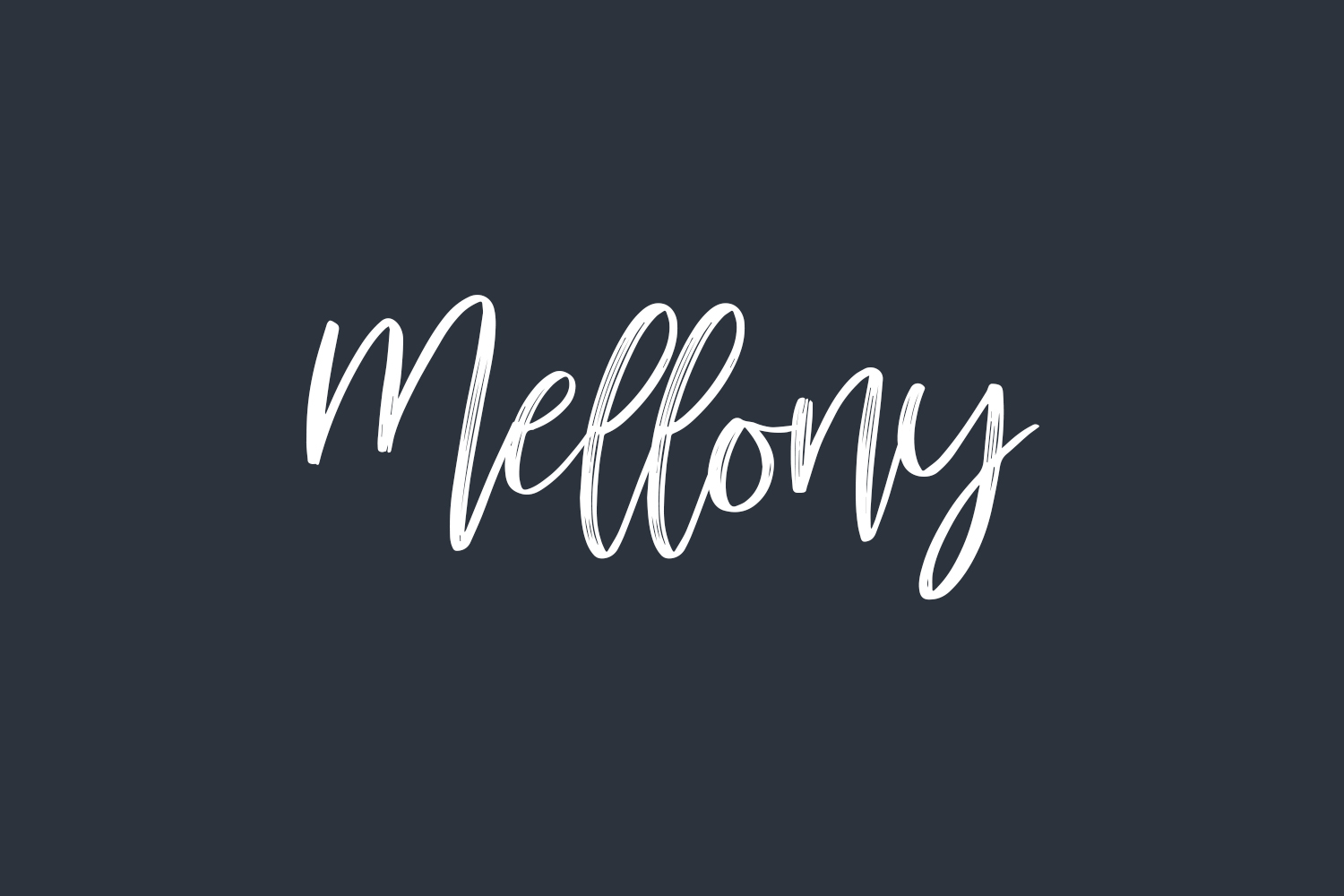
Mellony Free Font is a cool and light handwritten font with a lovely feel. It will add a charming spark to any crafting project. Mellony Free Font was designed by Alit Design and is free for personal use only. Please purchase the full version for commercial use.